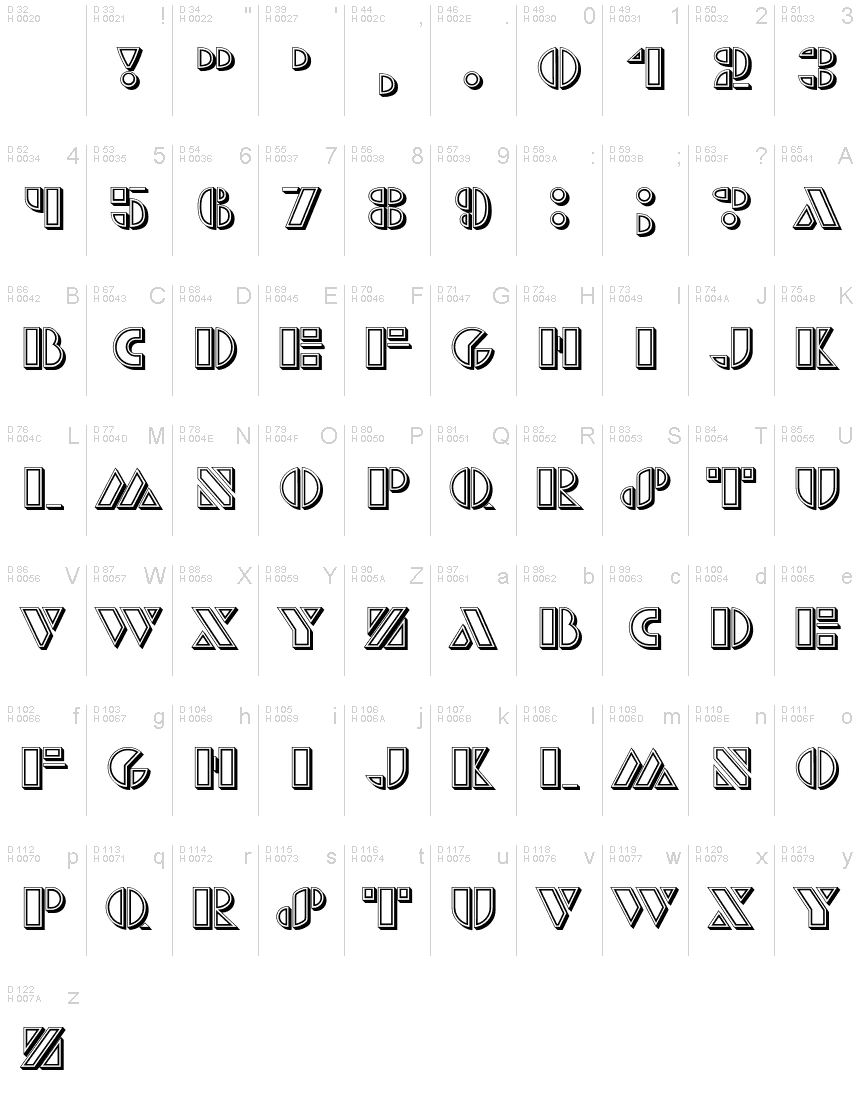
Monte Carlo Extravagant Regular
Monte Carlo Extravagant font is an extruded retro typeface designed by Vladimir Nikolic.
"Monte Carlo" comes in Regular, Hollow, Extravagant and Extravagant Filled!